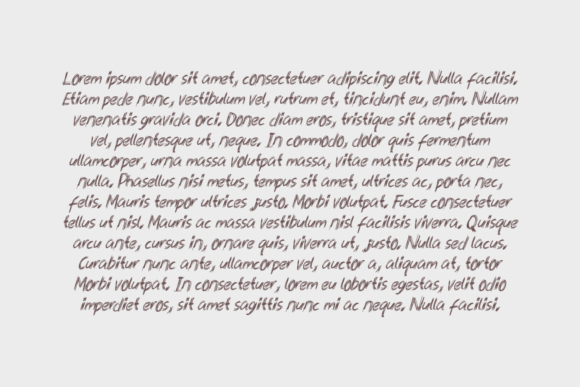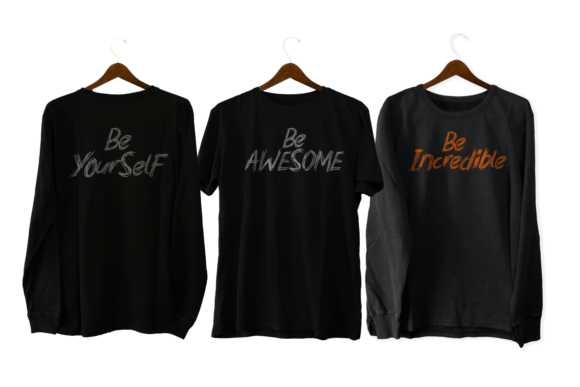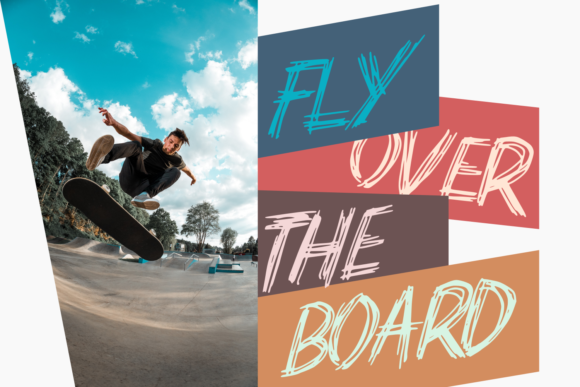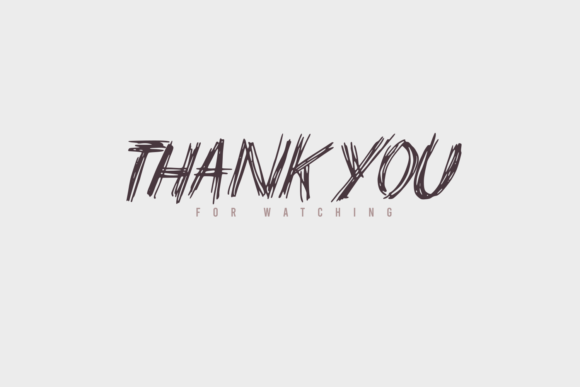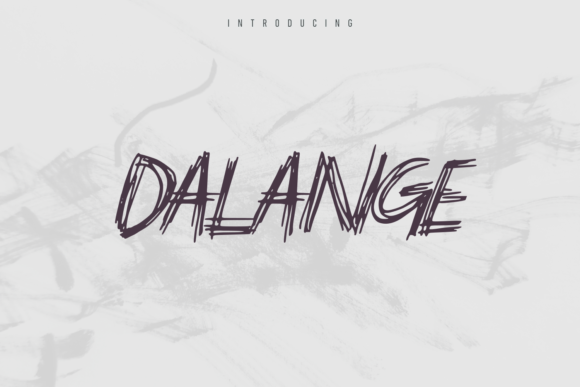
Introducing Dalange Font: A Simple yet Playful Display Font
Are you a designer or crafter looking for a font that can add a touch of joy and playfulness to your creations? Look no further than Dalange Font. This simple, adaptable display font is perfect for a wide range of projects, from cartoon-related designs and children’s games to quotes, titles, brand names, book covers, posters, and more.
What is Dalange Font?
Dalange Font is a unique and versatile display font that resembles a sketch. Its simple yet playful design makes it an excellent choice for designers and crafters who want to add a personal touch to their work. The font’s adaptability and legibility make it suitable for various applications, from digital designs to print materials.
Key Features of Dalange Font
- Simple and Playful Design: Dalange Font features a simple, hand-drawn design that gives it a playful and approachable feel.
- Adaptable: The font is highly adaptable and can be used for a wide range of projects, from digital designs to print materials.
- Legible: Despite its playful design, Dalange Font is highly legible, making it suitable for use in titles, headings, and body text.
- Versatile: The font can be used for various applications, including cartoon-related designs, children’s games, quotes, titles, brand names, book covers, posters, and more.
Use Cases for Dalange Font
Dalange Font is a versatile font that can be used in a variety of contexts. Here are some use cases where the font excels:
- Cartoon-related Designs: The font’s playful design makes it perfect for cartoon-related designs, such as character names, titles, and dialogue.
- Children’s Games: Dalange Font is an excellent choice for children’s games, as it adds a touch of fun and playfulness to the game interface.
- Quotes and Titles: The font’s legibility and simplicity make it suitable for use in quotes and titles, adding a touch of elegance and sophistication.
- Brand Names: Dalange Font can be used to create unique and memorable brand names that stand out from the crowd.
- Book Covers: The font’s adaptability and legibility make it an excellent choice for book covers, adding a touch of personality to the design.
- Posters: Dalange Font can be used to create eye-catching posters that grab attention and communicate the message effectively.
Benefits of Using Dalange Font
Using Dalange Font offers several benefits, including:
- Unique and Playful Design: The font’s unique and playful design sets it apart from other fonts, adding a touch of personality to your creations.
- Improved Legibility: Dalange Font’s legibility ensures that your message is communicated effectively, even at small font sizes.
- Versatility: The font’s adaptability and versatility make it suitable for a wide range of applications, from digital designs to print materials.
- Time-Saving: With Dalange Font, you can save time and effort in designing and crafting your creations, as the font provides a pre-designed solution.
In conclusion, Dalange Font is a simple yet playful display font that offers a unique and adaptable solution for designers and crafters. Its versatility, legibility, and simplicity make it an excellent choice for a wide range of projects, from cartoon-related designs and children’s games to quotes, titles, brand names, book covers, posters, and more. With Dalange Font, you can add a touch of joy and personality to your creations, setting them apart from the crowd.